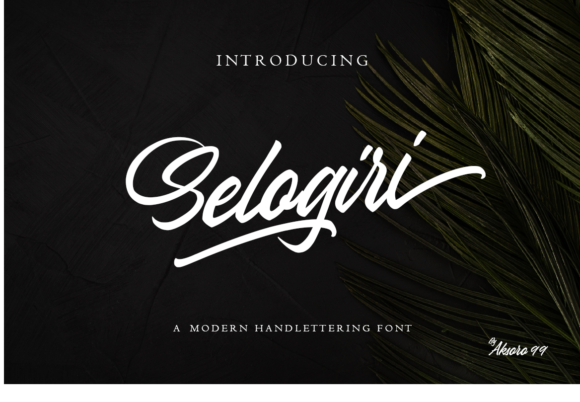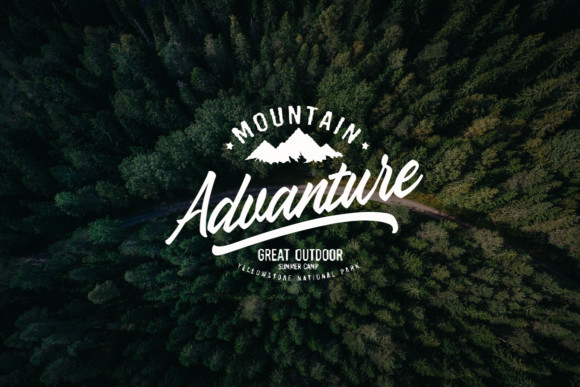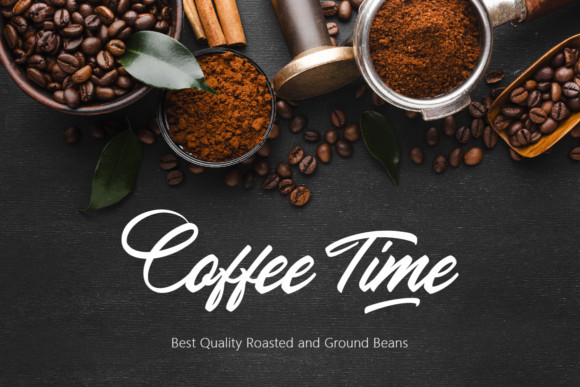
Selogiri Font
Selogiri FontSelogiri is a stylish and cursive script font. This font is neatly crafted and highly detailed. Whatever the topic, this font will be a wonderful asset to your font library, as it has the potential to enhance any creation.